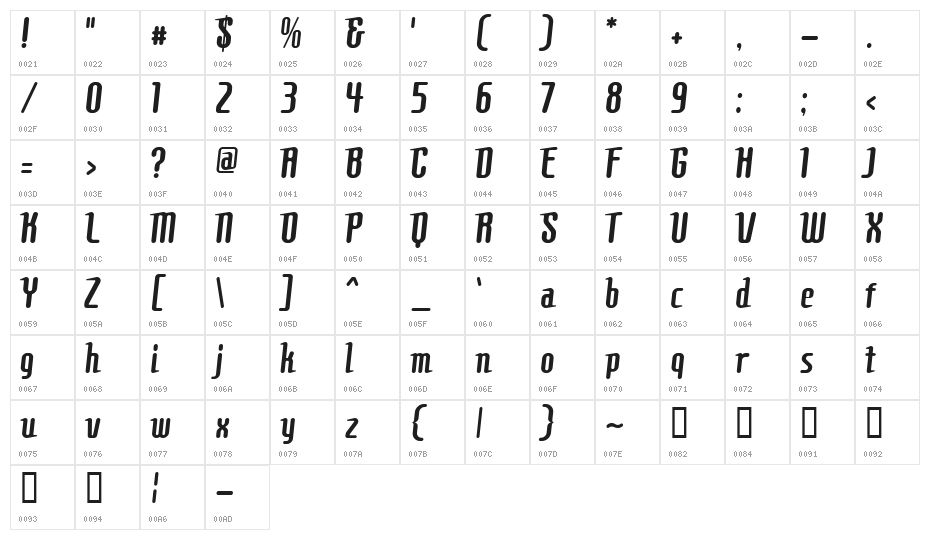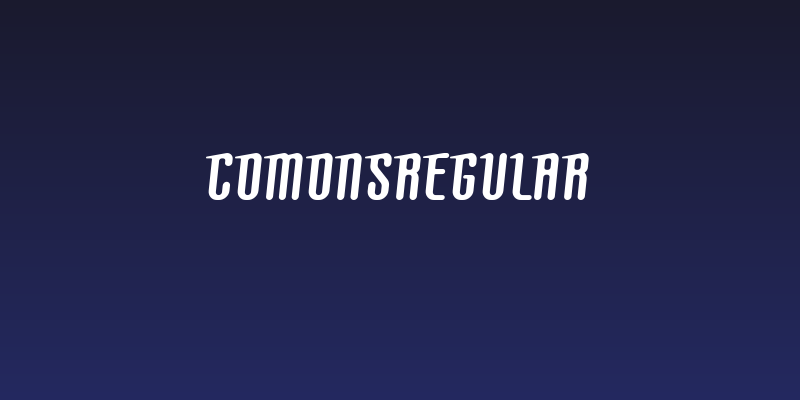
Comonsregular Font
Comonsregular Description
This font features a bold and dynamic style with a slight slant, giving it a sense of movement and energy. The characters are well-defined with rounded edges, providing a friendly and approachable appearance. The uppercase letters are tall and slightly condensed, while the lowercase letters maintain a consistent height, ensuring readability. The numerals are clear and distinct, complementing the overall design. Special characters are included, maintaining the same bold and energetic style, making this font versatile for various applications.
| Proposed Projects | Ideal for sports branding, dynamic posters, and energetic advertising campaigns. |